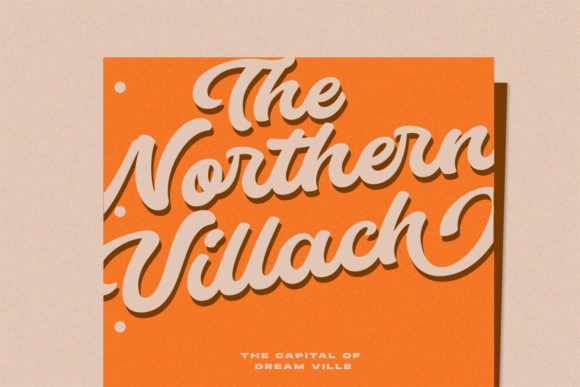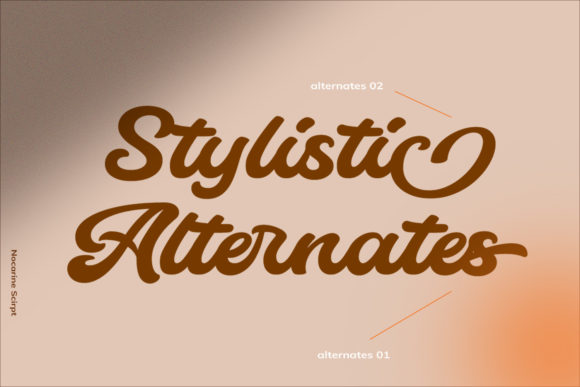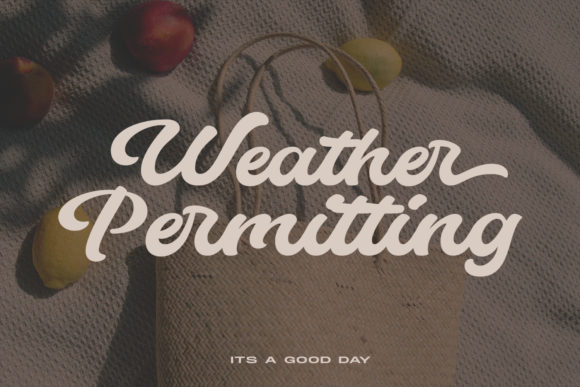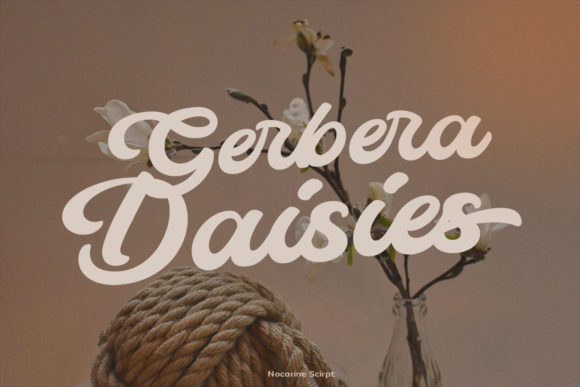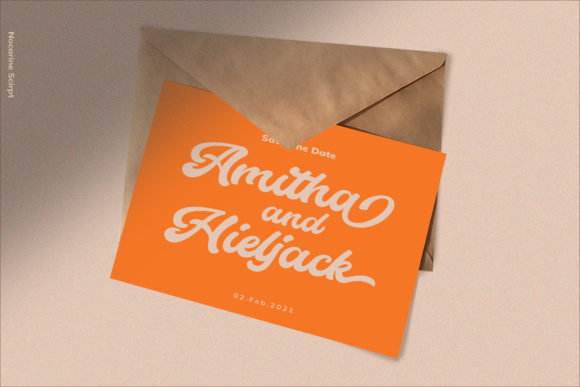
Nocarine Script Font
About Nocarine Script Font
Nocarine Script is a beautiful and chic script. This stunning handwritten font is a stylish homage to classic calligraphy. It features a varying baseline, smooth lines, gorgeous glyphs and stunning alternates.
It will elevate a wide range of design projects to the highest level, be it branding, headings, wedding designs, invitations, signatures, logos, labels, and much more!